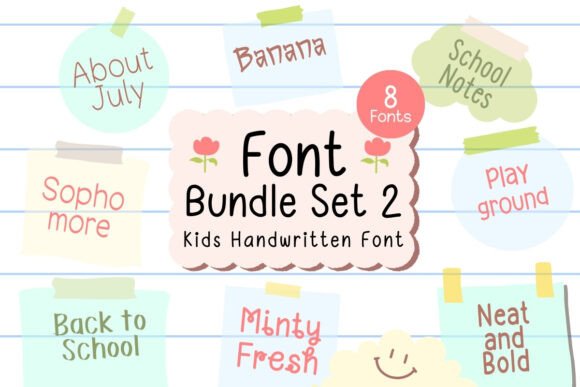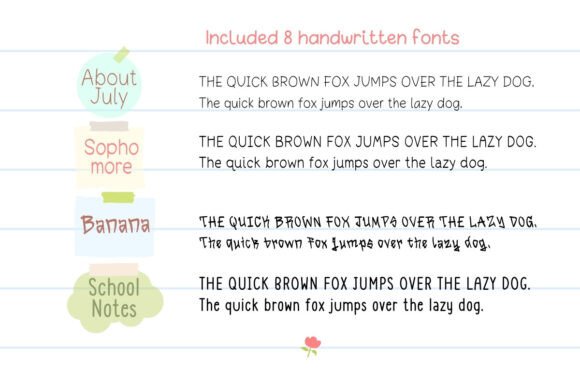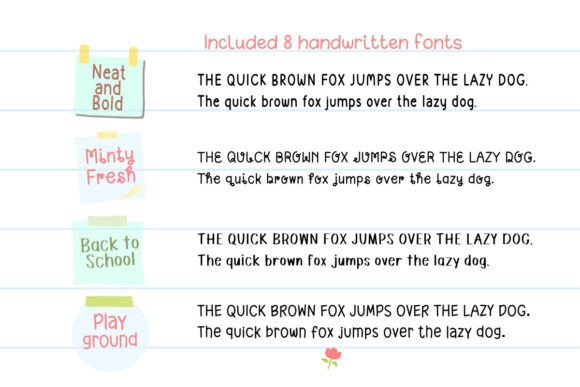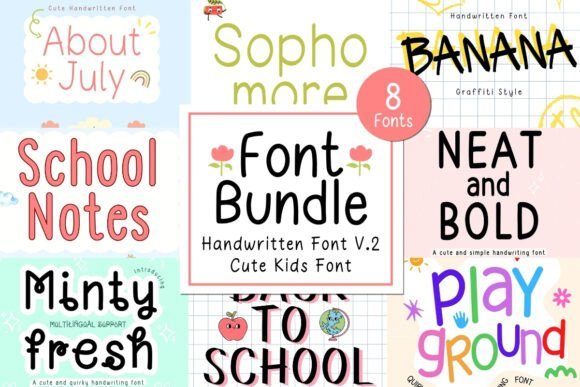
Introduction to Neat & Clean Handwritten Bundle V.2 Font
Neat and Clean Handwritten Font Bundle V.
2 is the ultimate collection of cute and tidy fonts perfect for all your creative projects This versatile bundle includes 8 unique and playful handwritten fonts designed to bring a charming and polished look to your work.
Key Features of Neat & Clean Handwritten Bundle V.2 Font